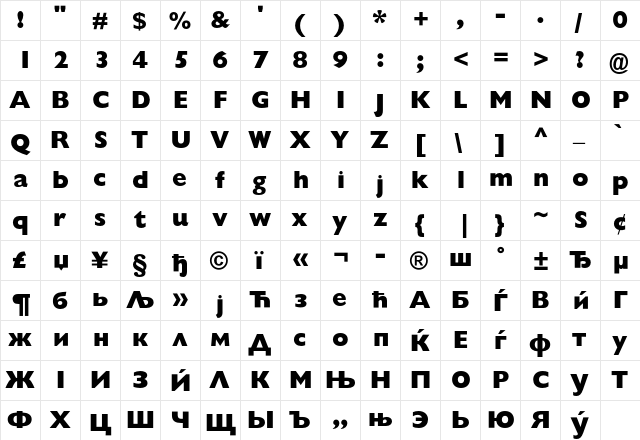
GillSans SA-ExtraBold Regular
Design Context for GillSans SA-ExtraBold Typeface
GillSans SA-ExtraBold offers clean, dependable letterforms without strong stylistic allegiance, making it a practical choice for designers who need flexibility. Its bold stroke weight gives it real presence on the page.
Pro Tip: Use GillSans SA-ExtraBold in both headline and body roles to test its range before committing to a single application.